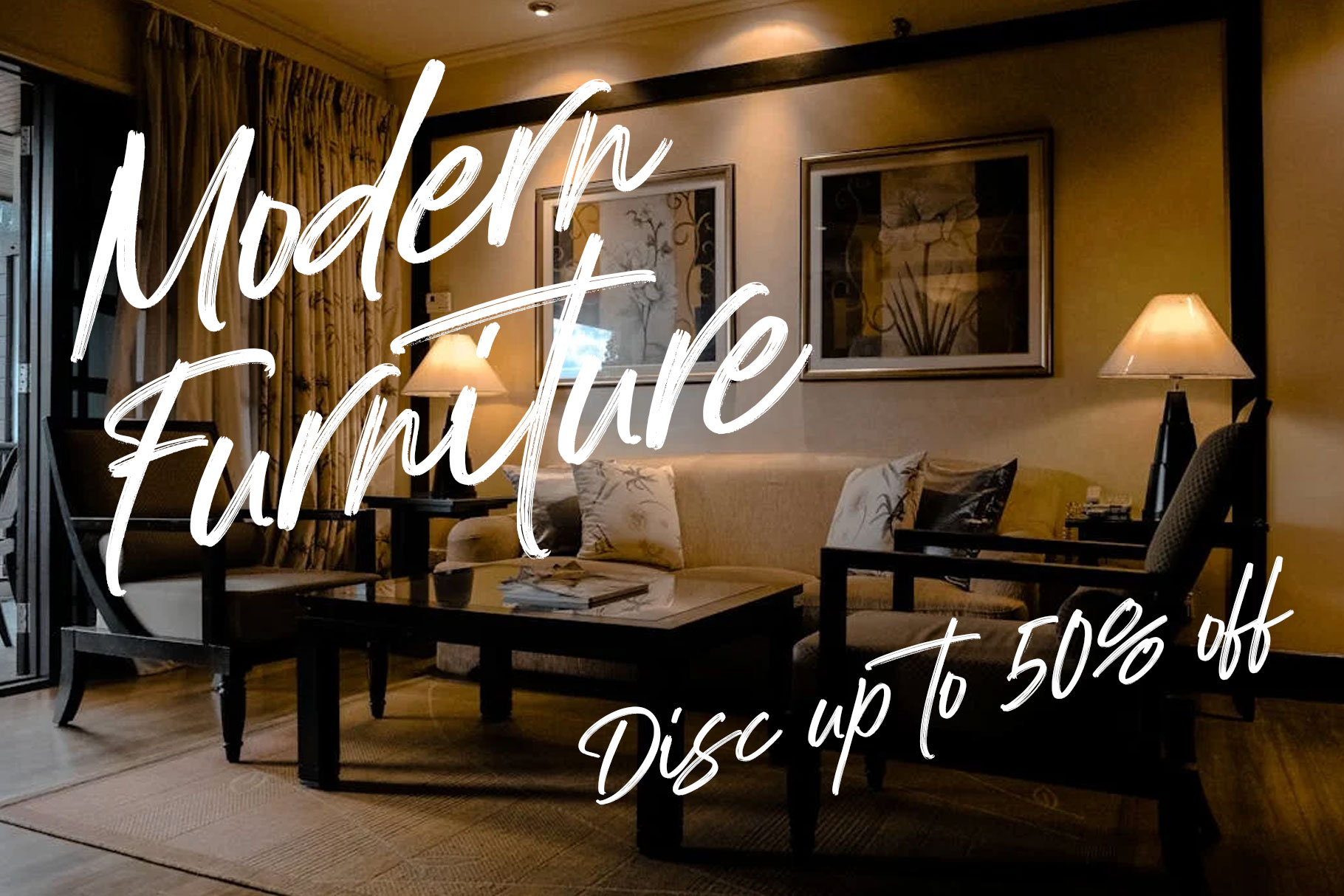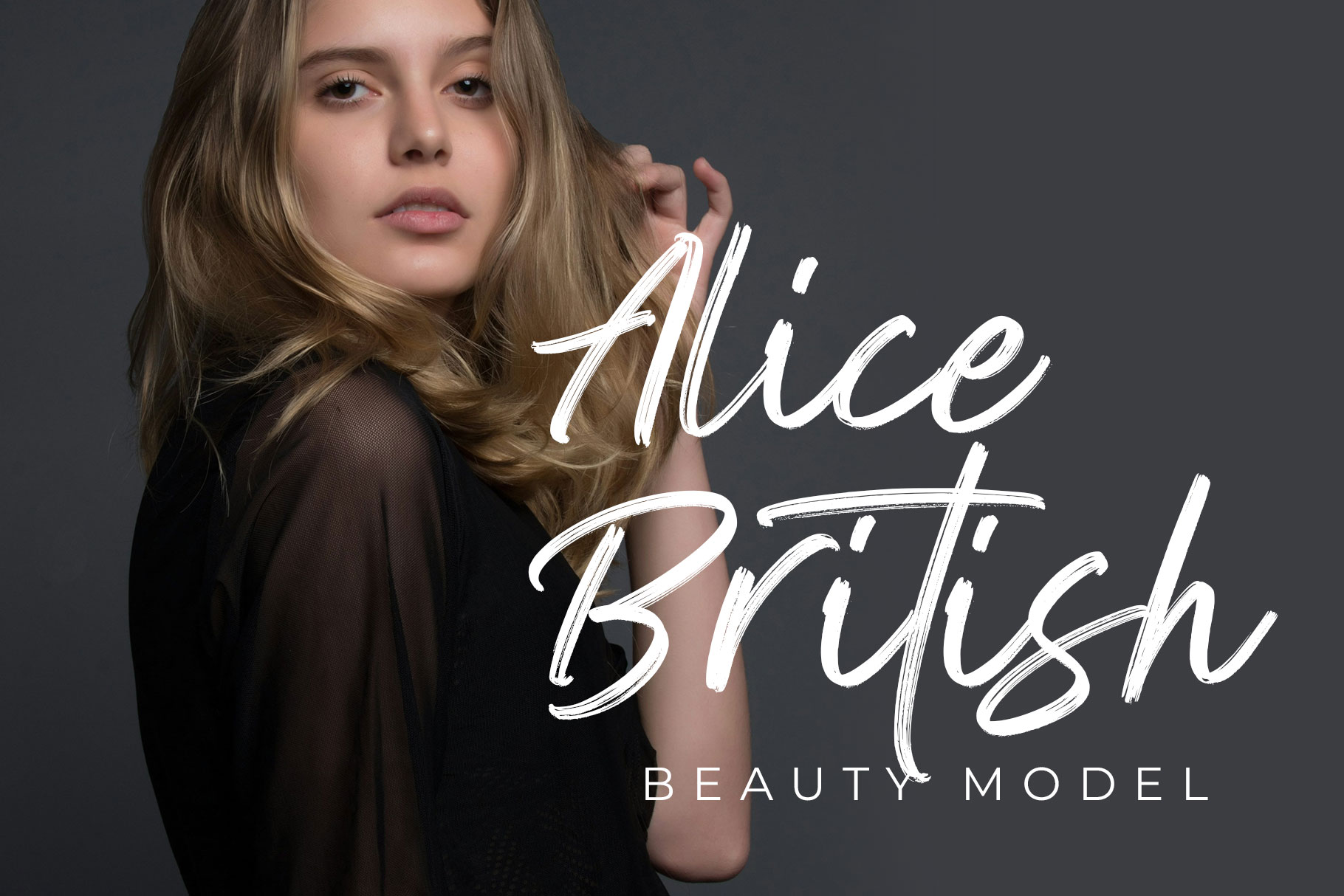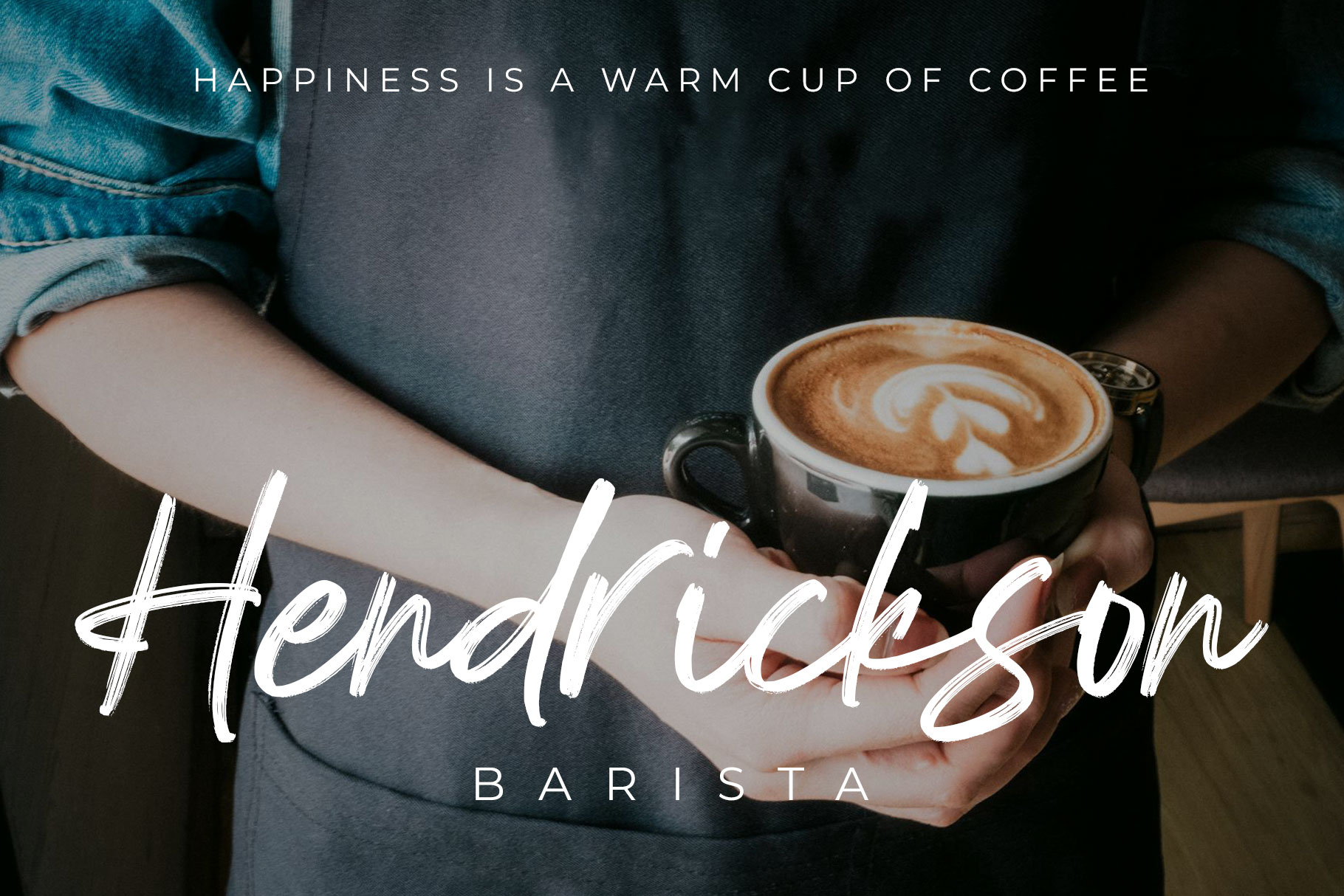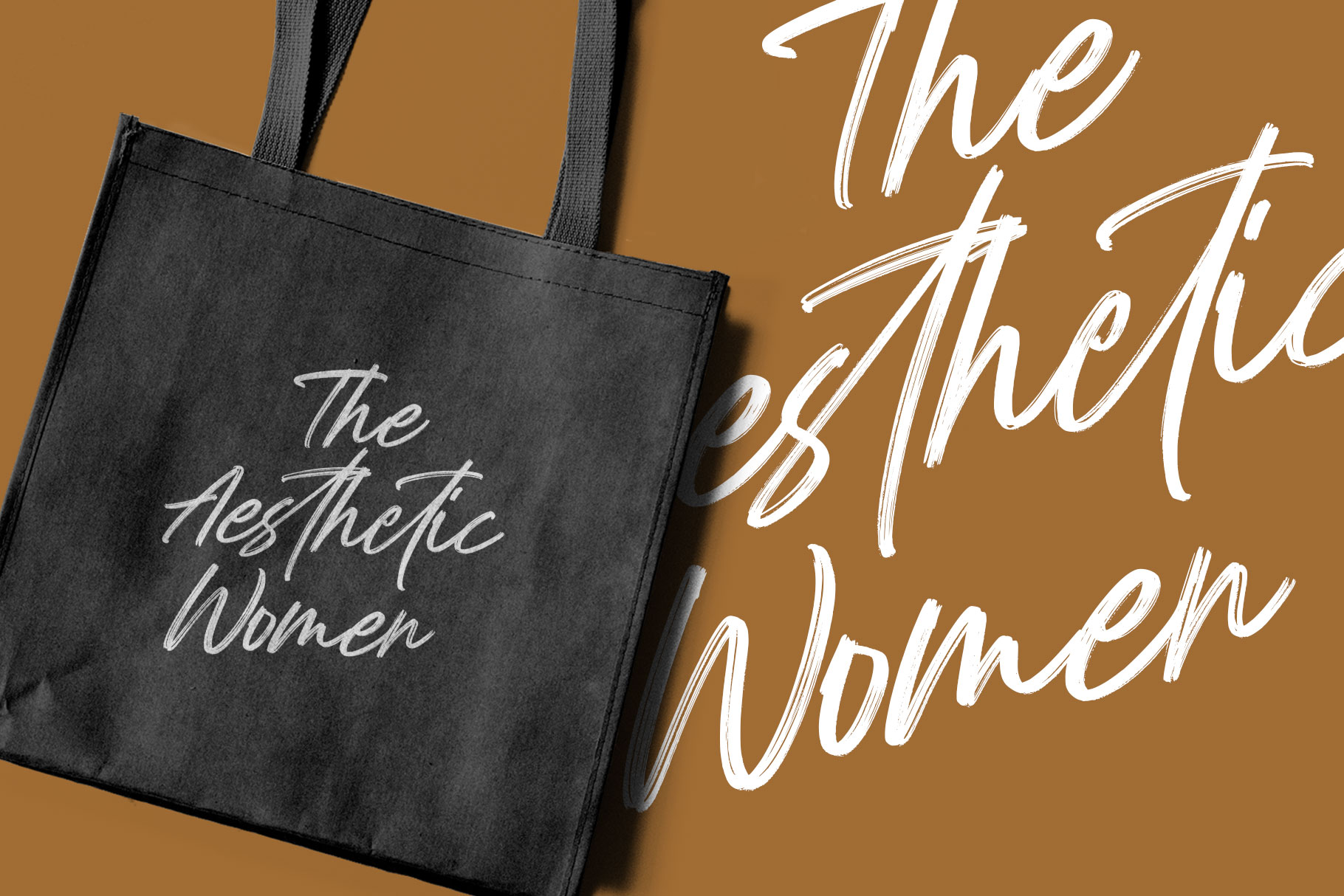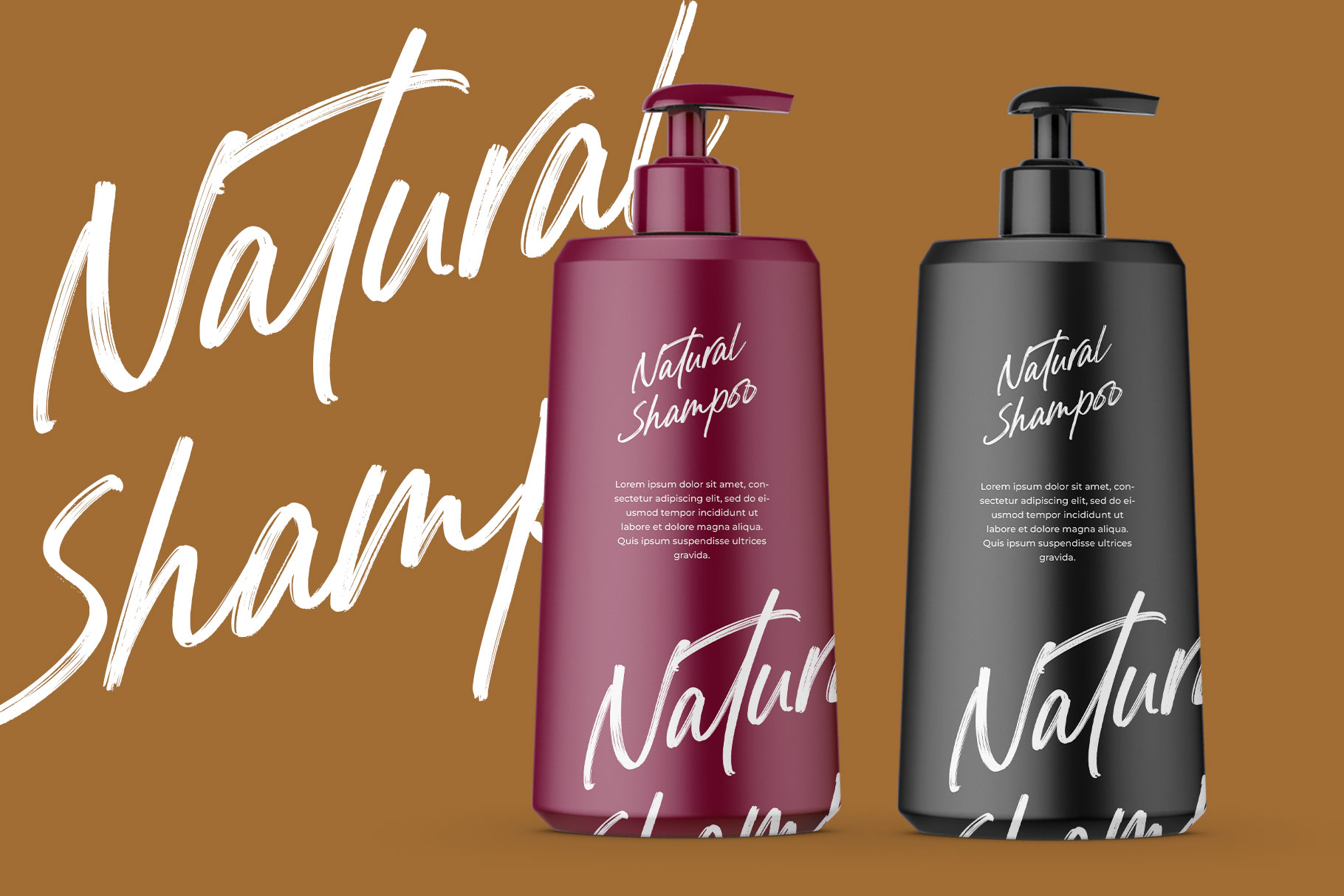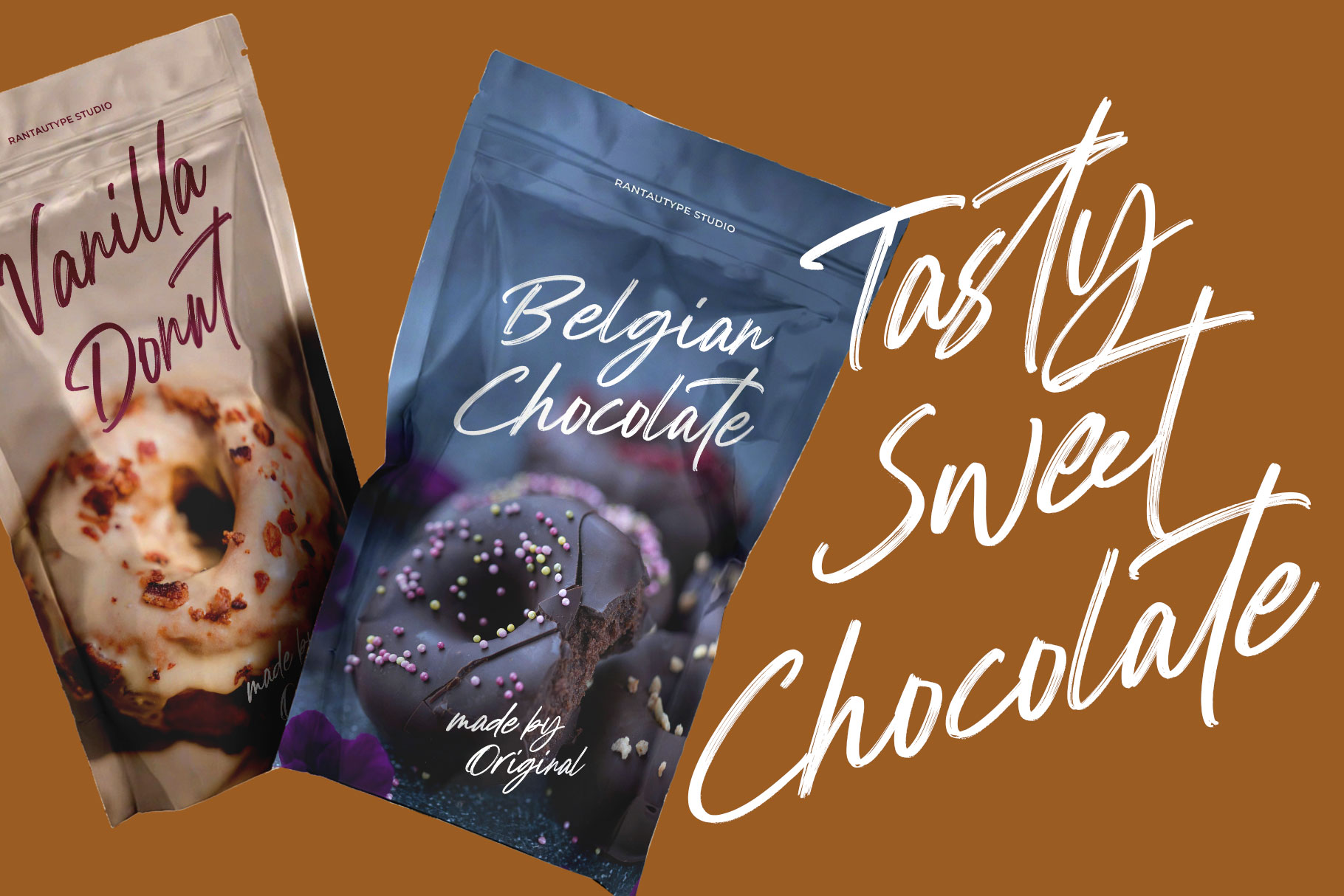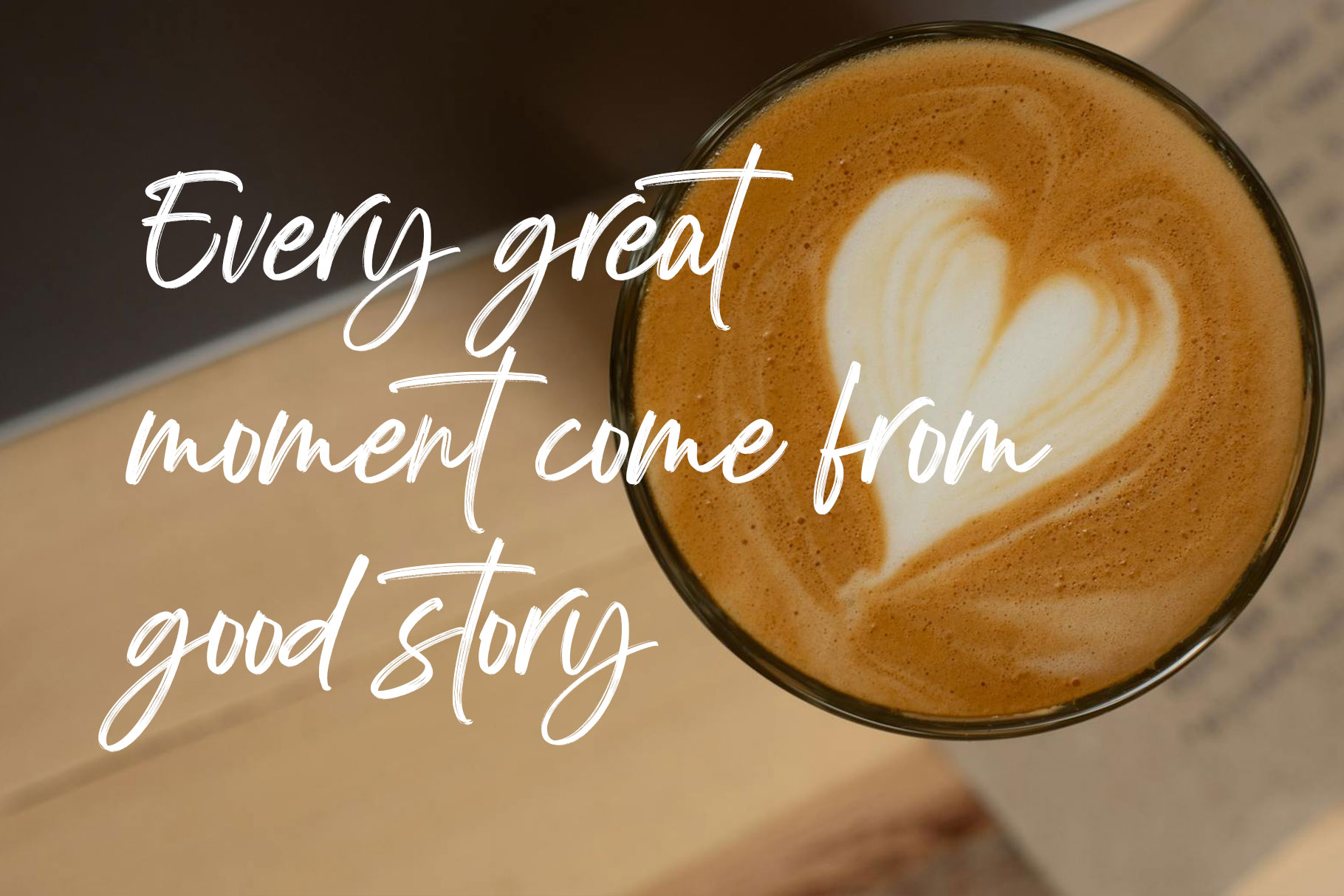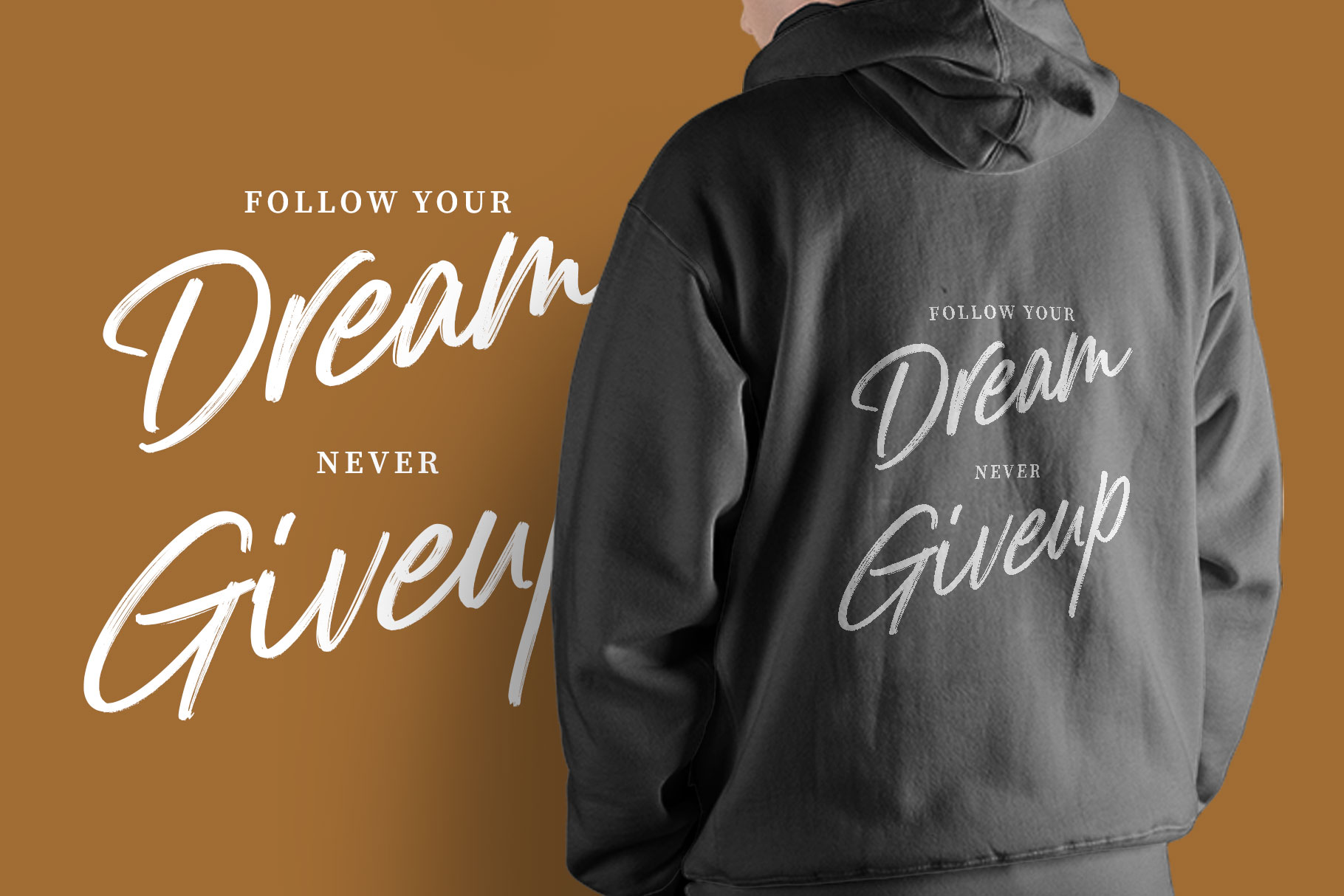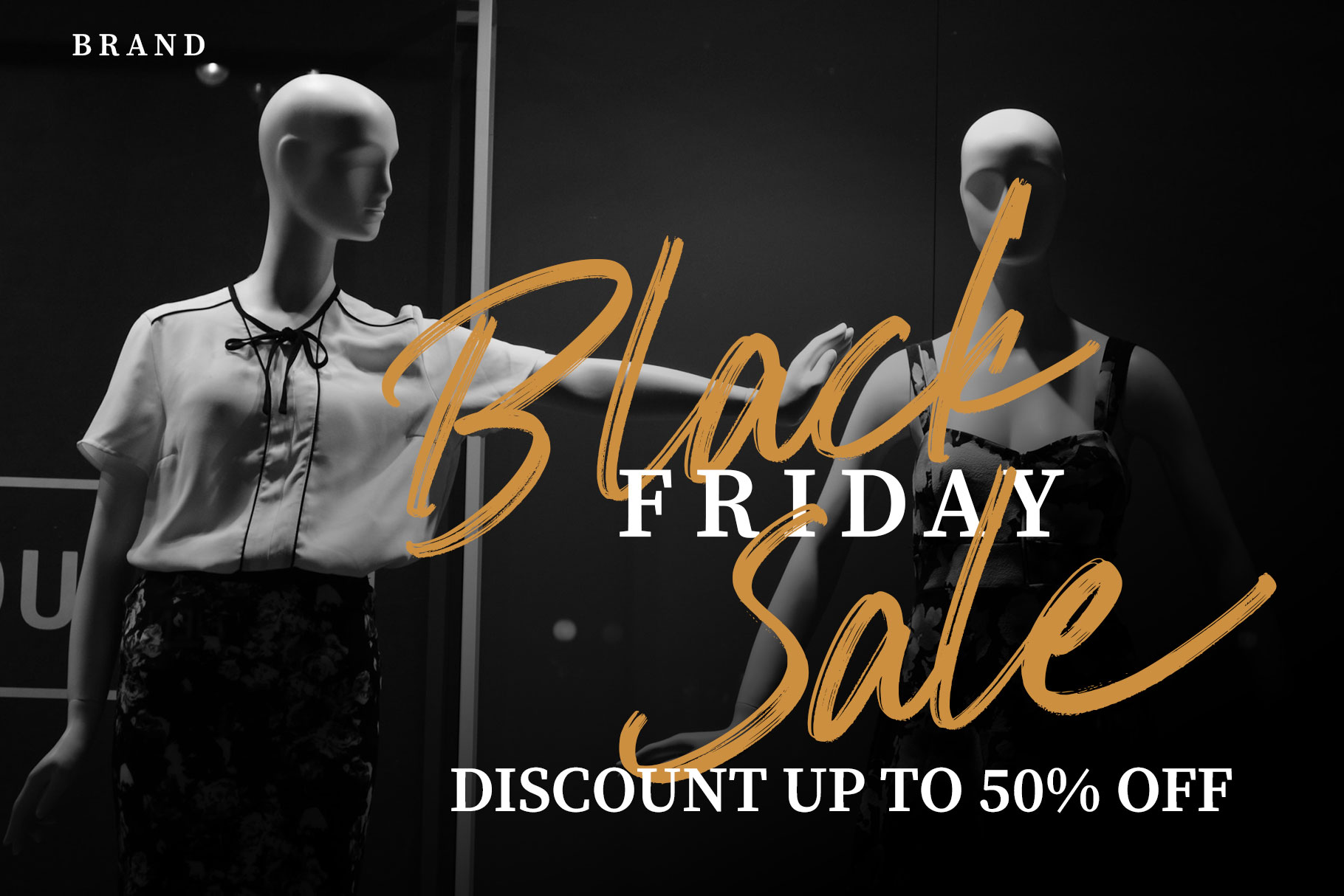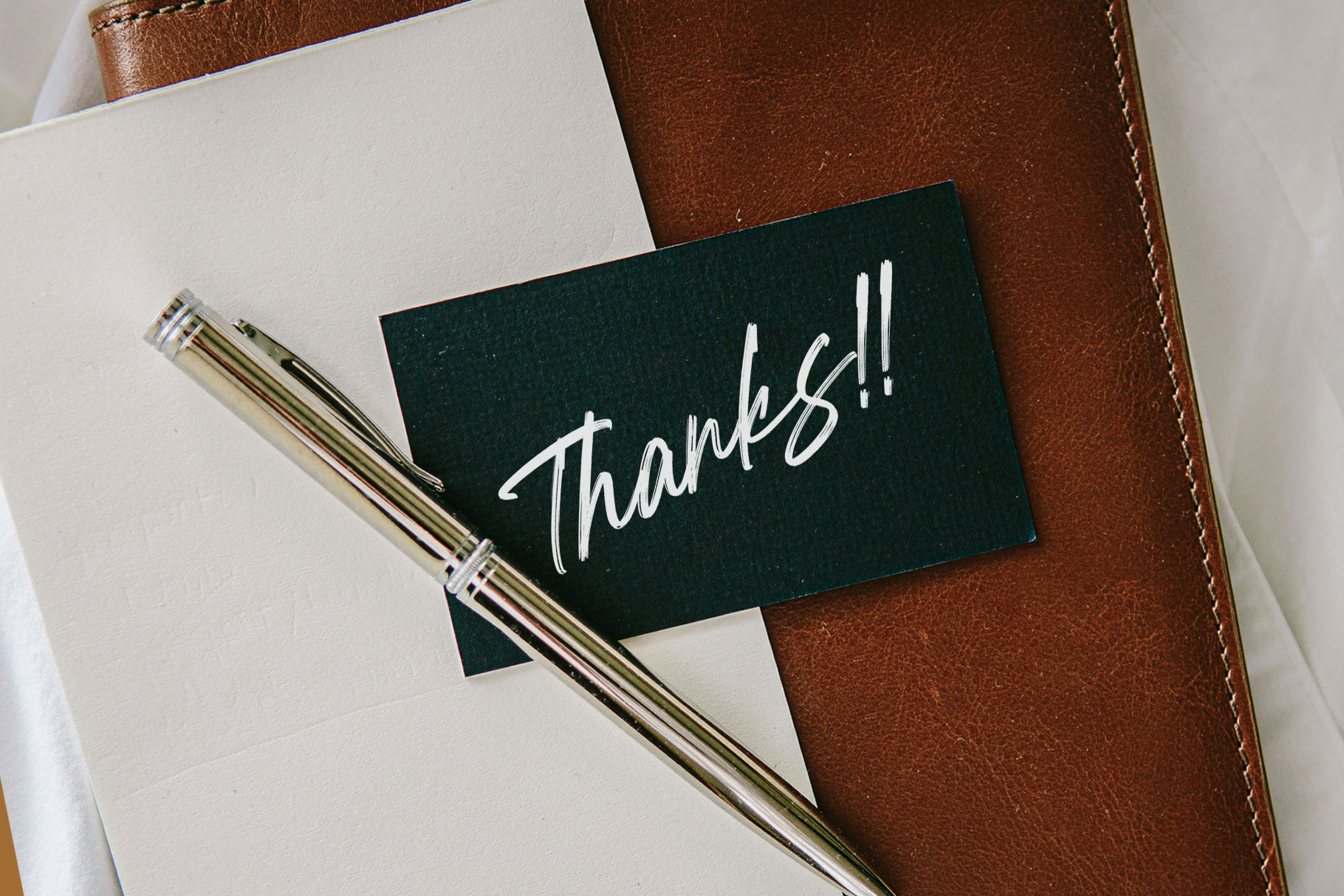
Dettamis Handwritten Script Font
Dettamis is stylish brush font made by rantautype studio. Dettamis come with flowless and authentic character to make your design project stand out! Dettamis is a professional choice for any creative endeavor, creating, modern, chic, lifestyle design such as logotype, title, cover, branding, invitations, wedding designs, display and magazine, social media posts, advertisements, printed quotes, product packaging, corporate brand, product designs, labels, photography, watermarks, special events and any other project with modern handwritten touch.